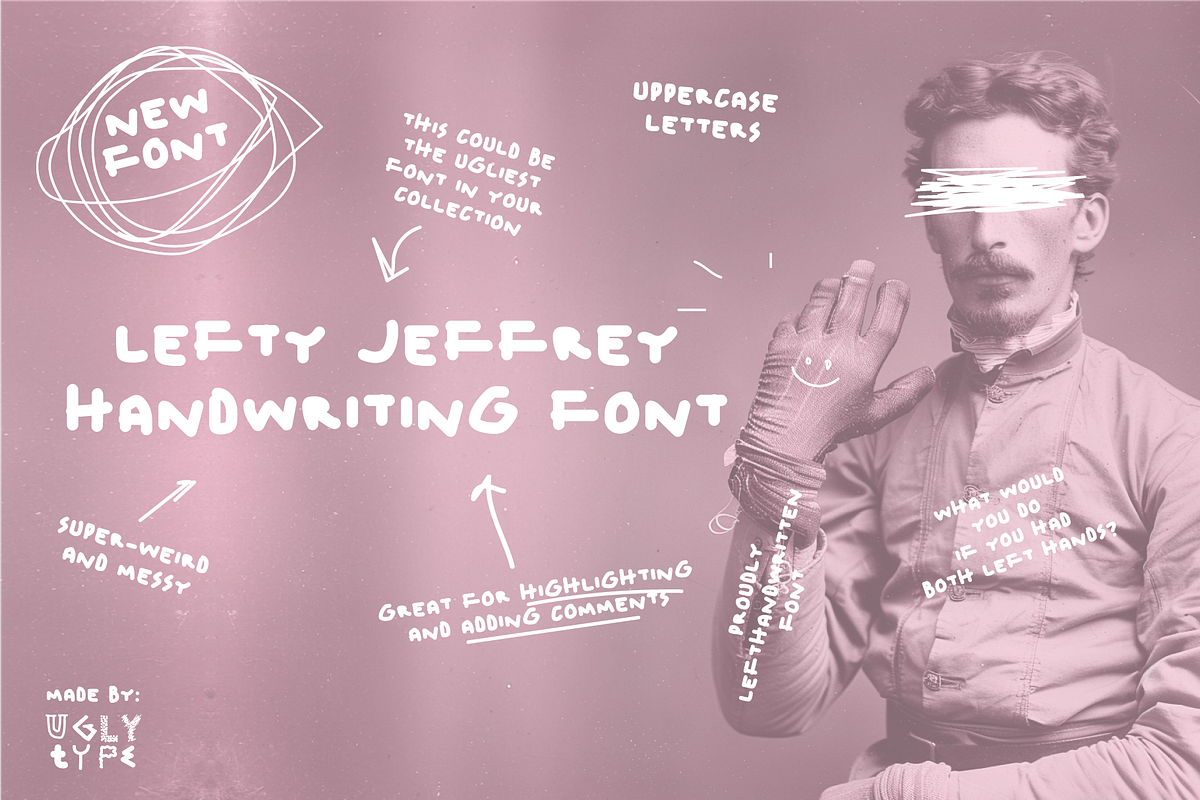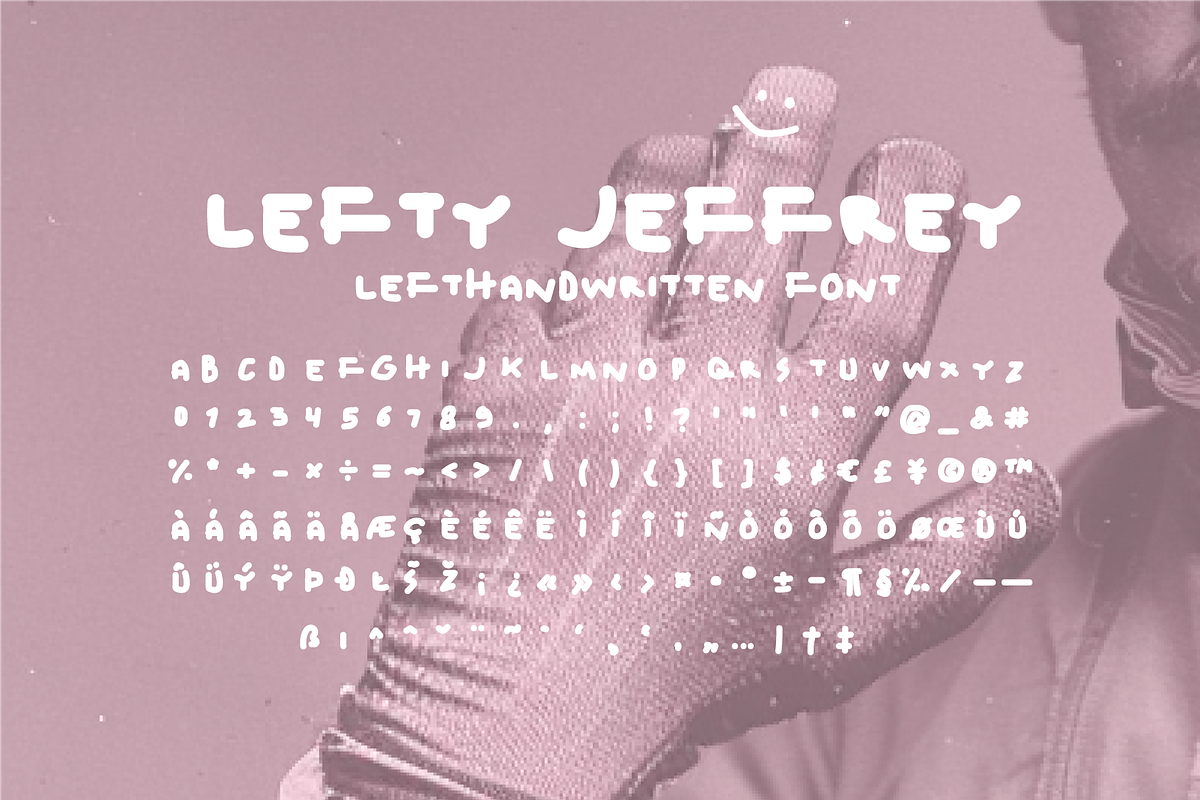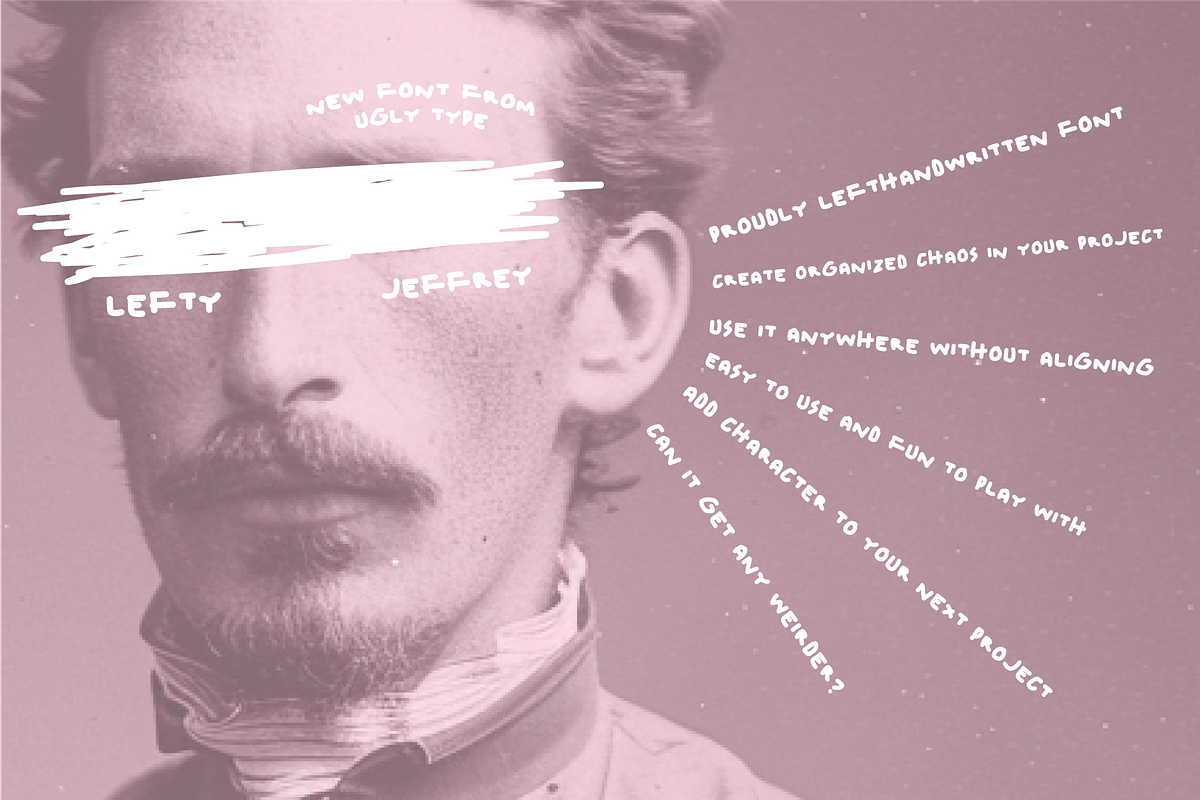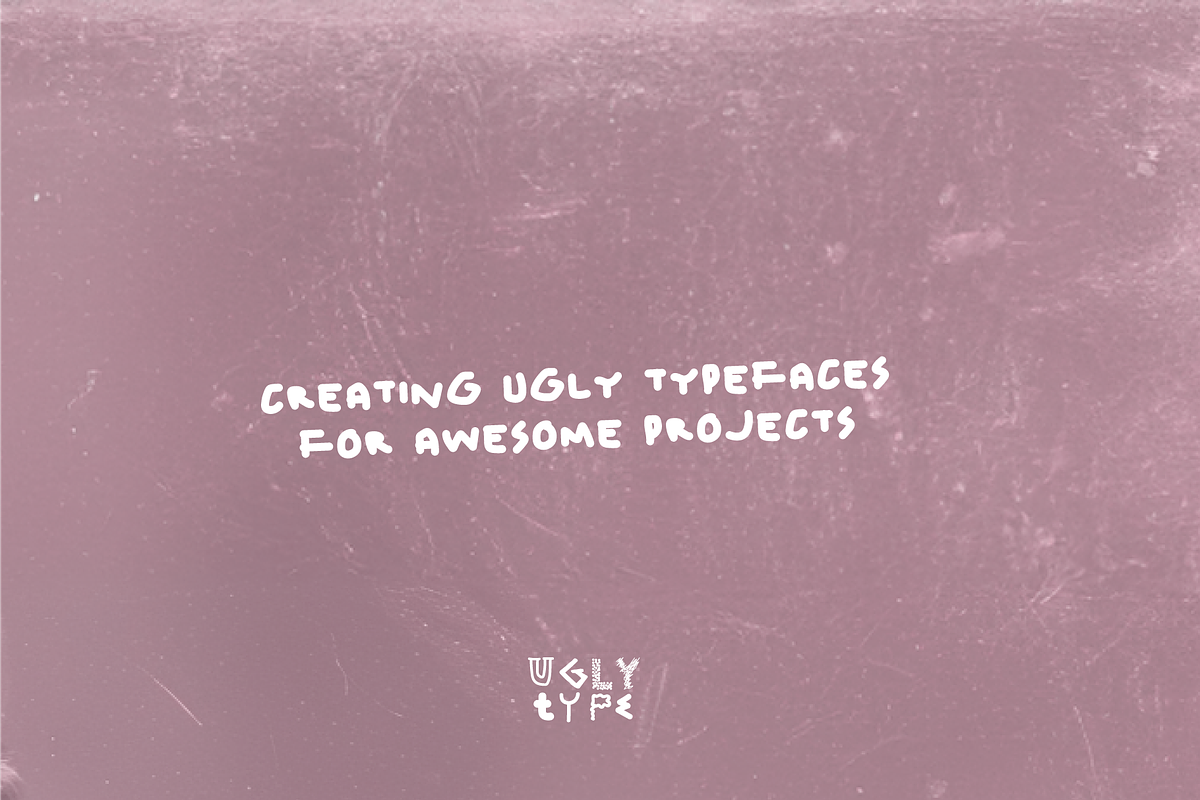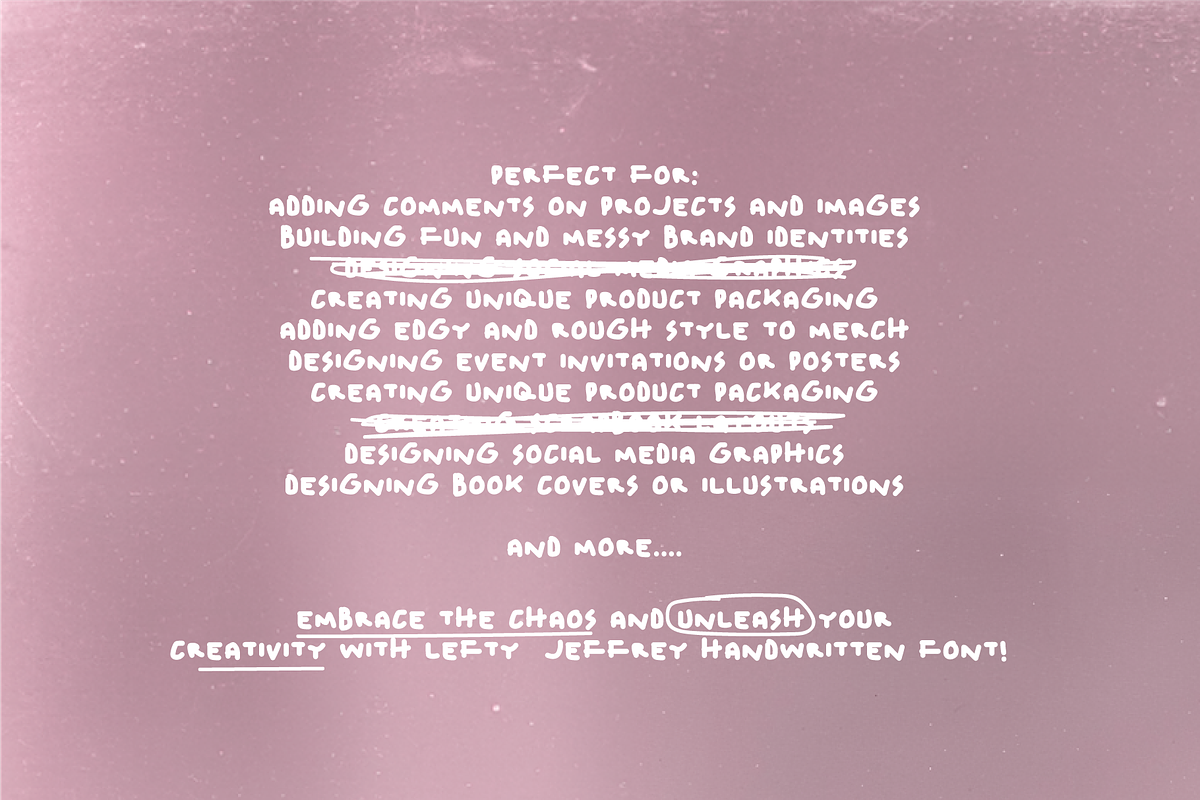
Lefty Jeffrey Handwriting font
Lefty Jeffrey handwriting font is a messy and weird handwriting font that is made using only my wrong arm - left one. Thats why it is so uneven, unperfected and truly unique. Could be used in any of your projects where you want to use a handwriting style type that looks authentic and rough.
It is an uppercase font with some numerals and symbols included (see photos) The font includes both .otf and .ttf file formats